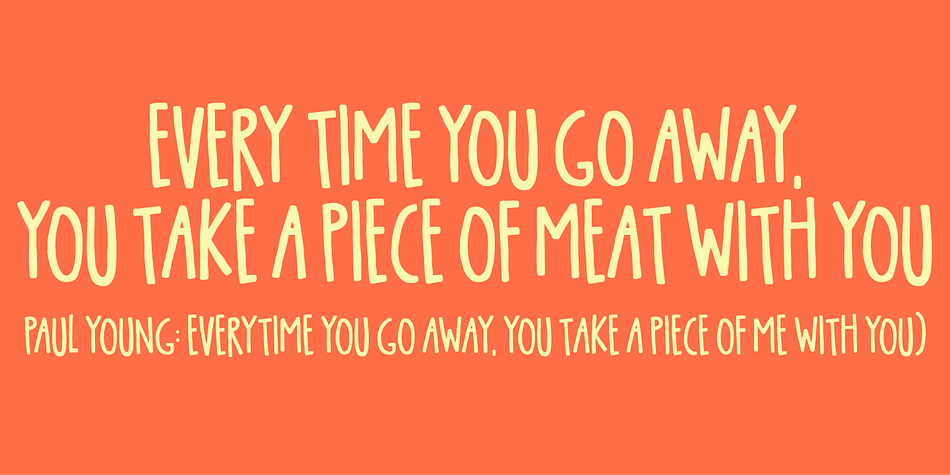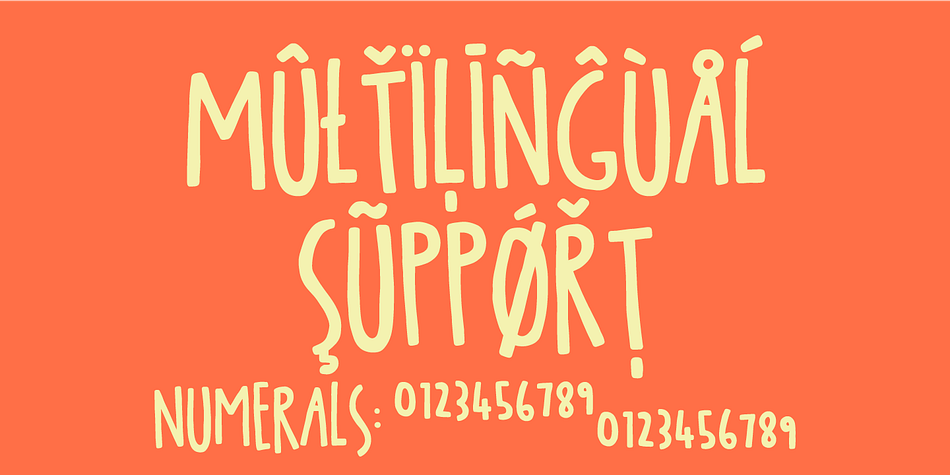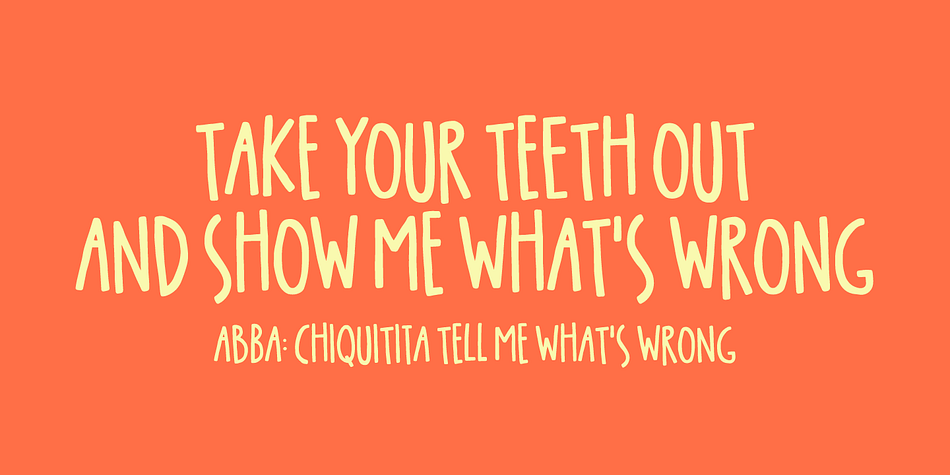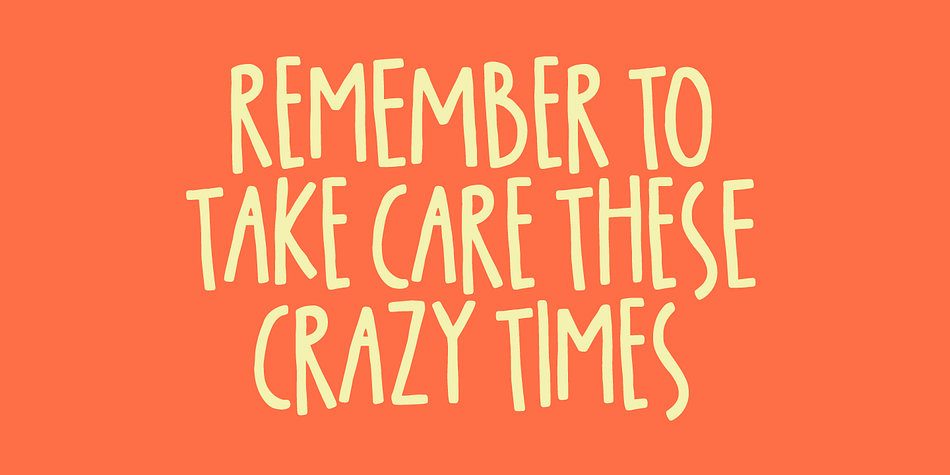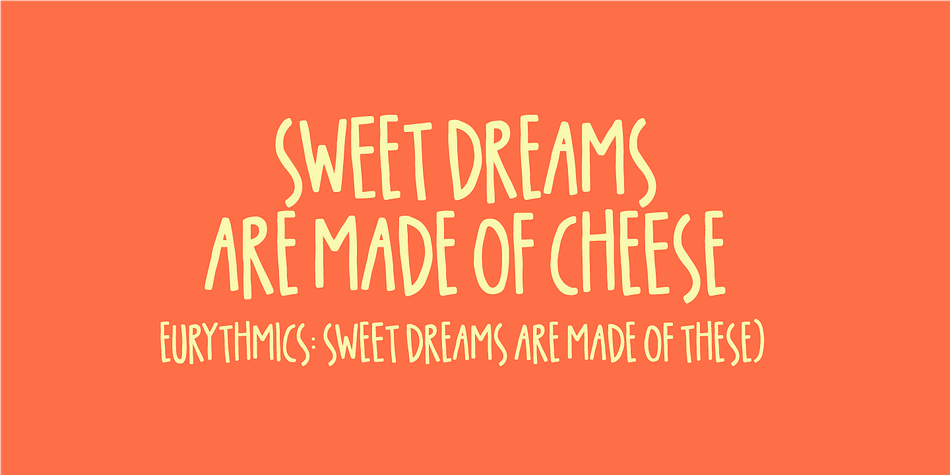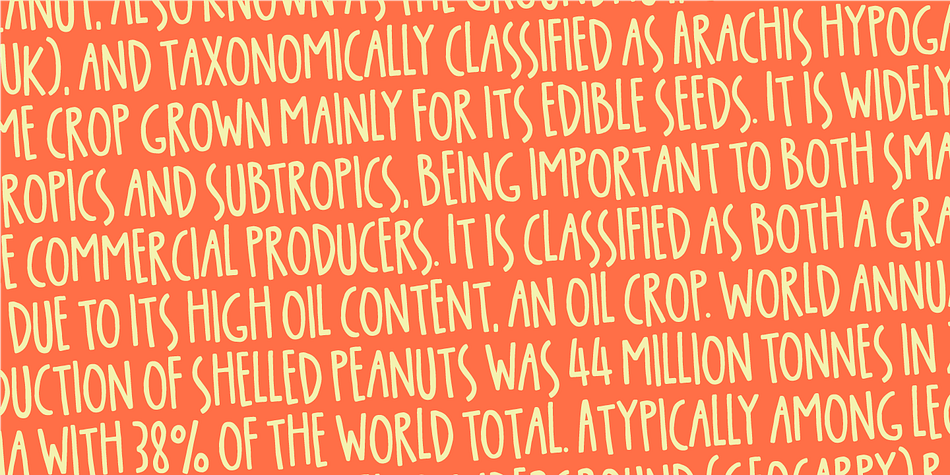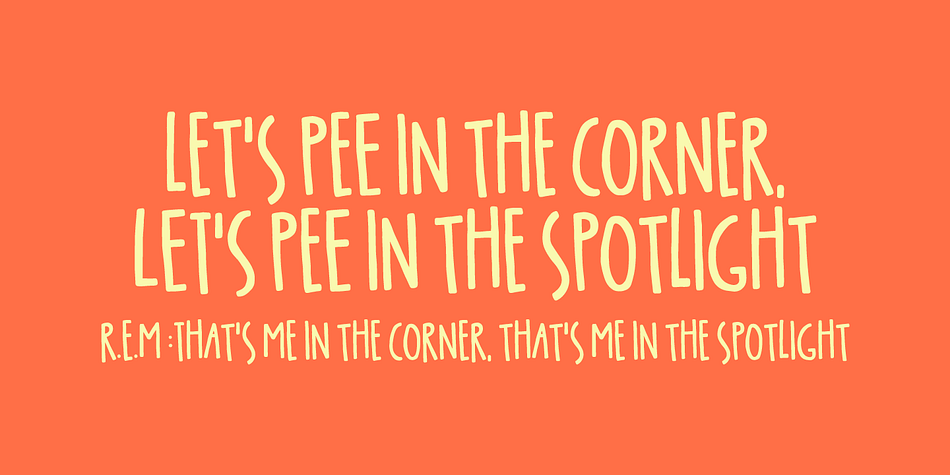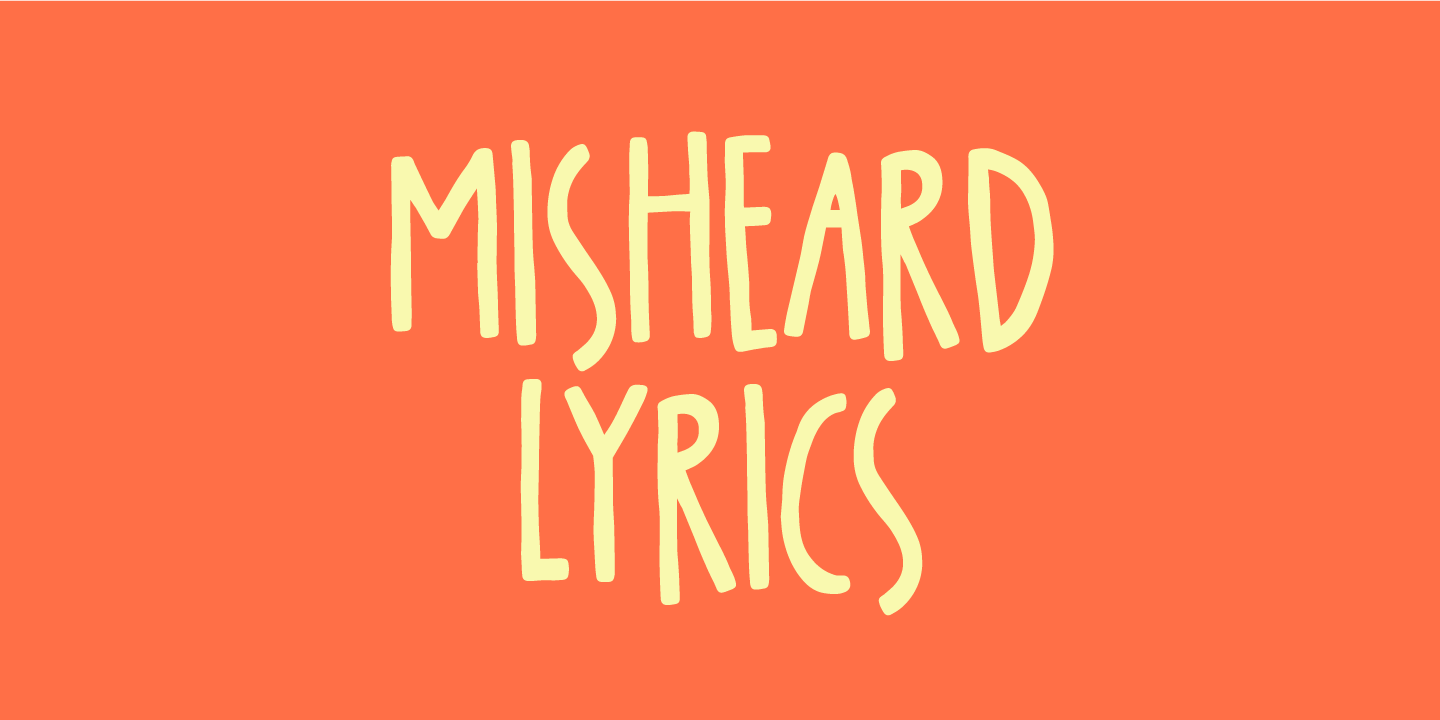
Designed by Jakob Fischer, Misheard Lyrics is a hand display and hand drawn font family. This typeface has two styles and was published by Bogstav.
Did you ever get lyrics from a song wrong? And maybe found out years and years later, that is was wrong…but the wrong lyrics get stuck, even though you know that they are wrong! :)
Misheard Lyrics is a font that most likely gets stuck in your design, because it has that bouncy and random look that makes your text come alive - without overdoing it!